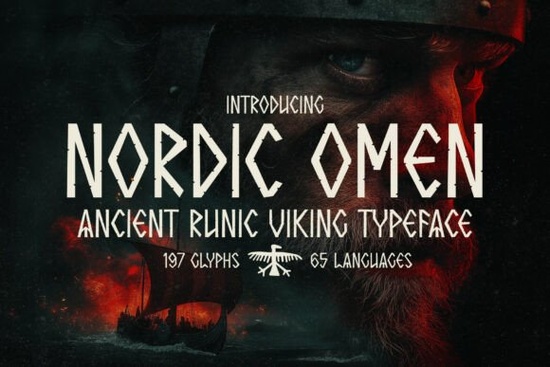
If you’re working on a project that needs a bold, ancient feel, Nordic Omen Font brings that rugged Norse spirit straight into your design. This display typeface looks like it was carved into stone by Vikings themselves, with jagged edges, rune-inspired shapes, and a raw warrior energy. It’s built for designers and creators who want to evoke mystery, strength, and untamed mythology.
Why choose Nordic Omen Font for your next project?
Nordic Omen works especially well whenever you need a typeface that feels legendary. Think epic video game titles, fantasy book covers, metal band posters, or branding for a Norse-themed product line. Every letter carries the weight of ancient runes, making it ideal for designs that should look hand-carved or historical. If you sell print-on-demand items like t-shirts, mugs, or wall art, this font gives your products an instant “warrior tribe” vibe that stands out.
Because it’s a display font, avoid using it for long paragraphs. Instead, use it for headlines, logos, or short callouts where you want maximum impact. Pair it with a clean, simple sans-serif body font to keep the layout readable.
How does Nordic Omen compare to other display fonts?
Where can you use Nordic Omen Font in real projects?
- Fantasy book covers or series titles – The jagged letters immediately hint at epic sagas and mythical worlds.
- Game UI or loading screens – Use it for main menus, boss names, or quest titles in Viking‑themed games.
- Posters for events or concerts – Metal bands, renaissance fairs, or film festivals can all benefit from this bold look.
- Product branding – Mead labels, leather goods, or axe‑making brands will feel authentic and powerful.
- Social media graphics – Announce a new product drop or share a legendary quote with a standout headline.
What should you keep in mind when using Nordic Omen?
Since the font has dramatic, uneven strokes, test it at different sizes. It shines at larger sizes, but at very small sizes (under 18 pt) some details might blend together. Always check readability on screens and in print. Also, consider the color scheme – dark backgrounds like deep navy, charcoal, or forest green let the jagged shapes pop.
If you’re creating a cohesive brand, combine Nordic Omen with a neutral font like Montserrat or Open Sans for body text. That contrast keeps your design professional while still bold.
- ✔ Test the font at your intended sizes (headline vs. subheading)
- ✔ Pair with a simple sans-serif for body copy
- ✔ Use it on dark or textured backgrounds to enhance the carved‑stone effect
- ✔ Avoid mixing with other highly decorative fonts – let Nordic Omen be the star